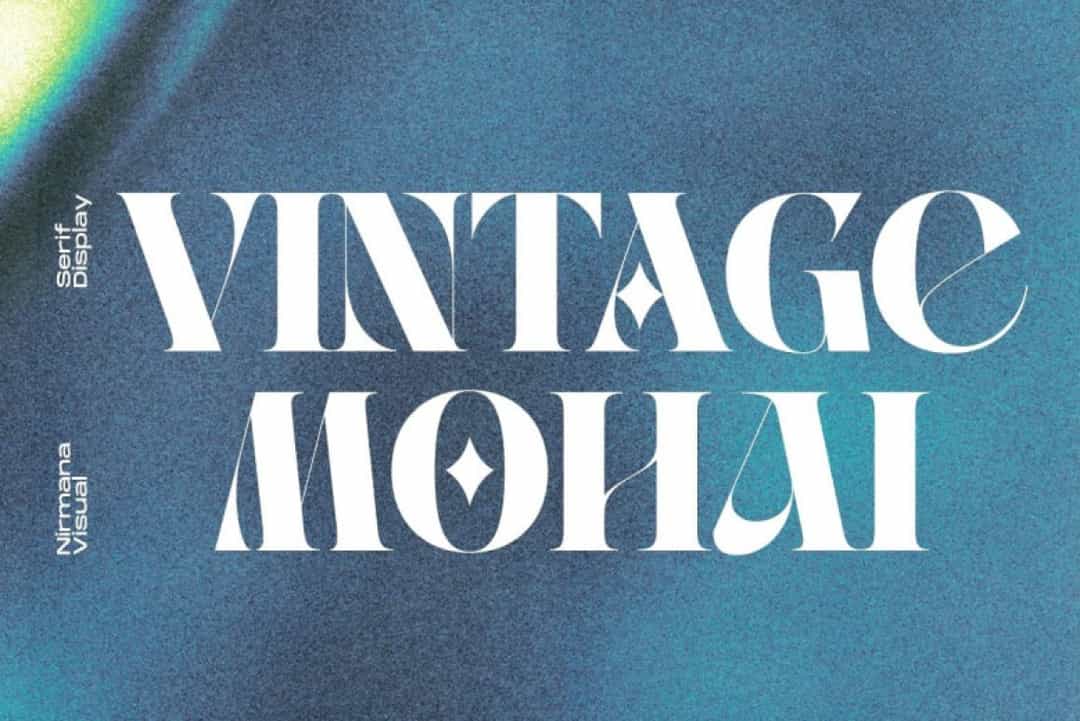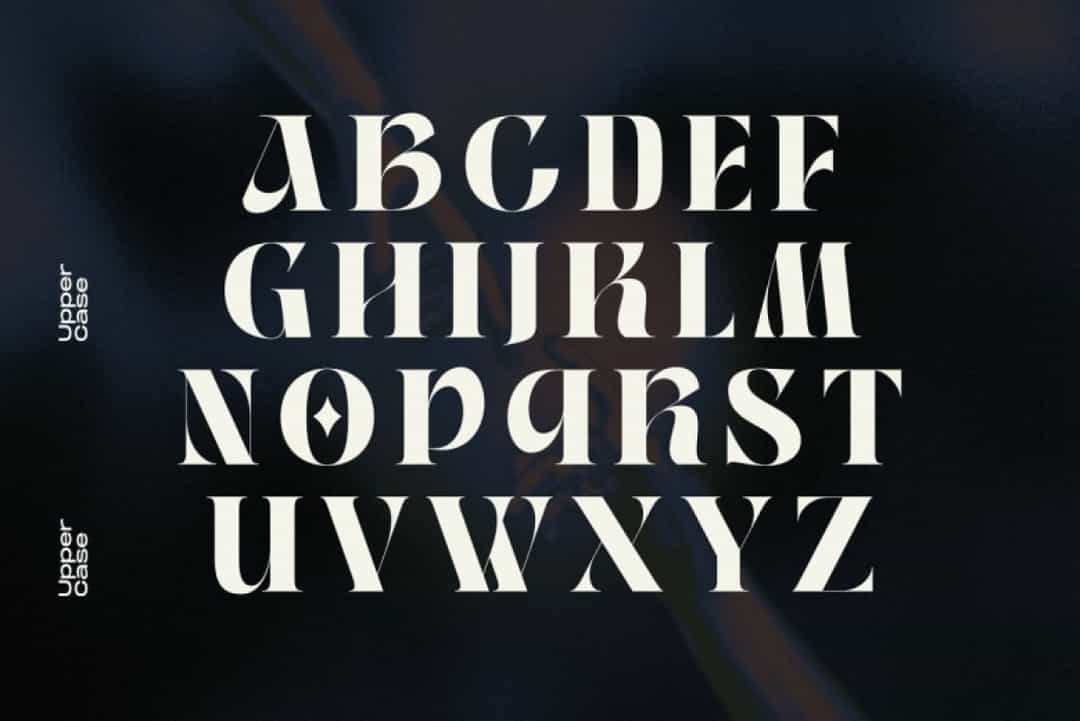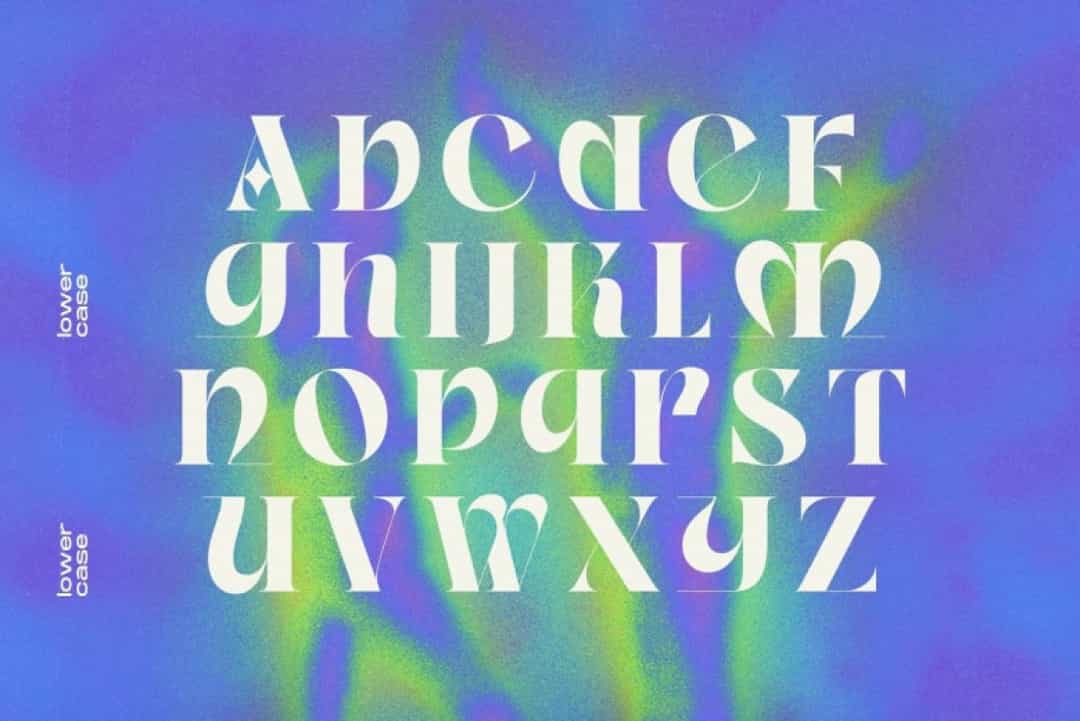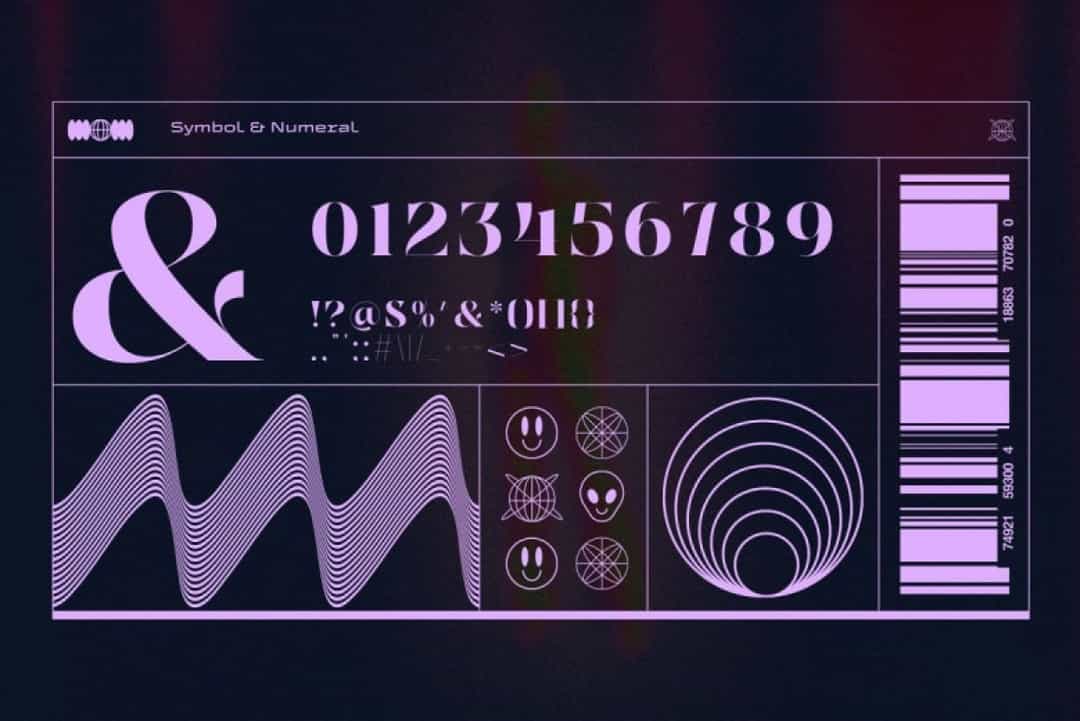
Vintage Mohai was inspired by Renaissance Design Era. Vintage Retro offers stunning typographic harmony for various design projects including branding and logo creations as well as social media posts and ads or design concepts for products.